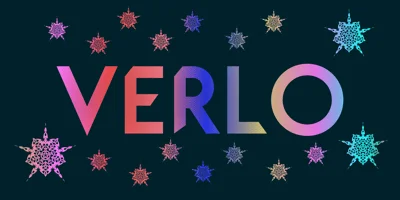
Verlo Font
The Verlo Font is excellent for modern corporate identities, sleek web interfaces, professional presentations, contemporary magazine layouts, minimalist product packaging, tech startup branding, clean architectural signage, and sophisticated mobile applications. This versatile typeface works exceptionally well in applications where clarity and modern professionalism are paramount, making it perfect for businesses that want to project confidence and forward-thinking approach through crisp, contemporary typography.
What makes Verlo Font exciting is its perfect balance between geometric precision and humanistic warmth that creates exceptional readability without sacrificing personality. The font's carefully refined letterforms and optimized spacing create an atmosphere of intelligent design and thoughtful craftsmanship, making it ideal for brands that want to communicate both technical expertise and approachable professionalism. Its clean aesthetic and versatile character make it suitable for everything from corporate communications to creative applications.
The Verlo Font family typically includes thin, light, regular, medium, and bold weights, often complemented by matching italic styles and condensed variations. Many versions feature advanced OpenType capabilities, extensive multilingual support, and carefully crafted numerals that enhance its functionality for international business applications and data-heavy presentations requiring exceptional typographic precision.
For designers seeking a reliable typeface that combines contemporary aesthetics with practical functionality, Verlo Font offers outstanding versatility. Its ability to maintain visual interest while ensuring excellent readability makes it an essential tool for corporate communications, digital interfaces, and any project requiring typography that embodies modern business sophistication and accessible design excellence.